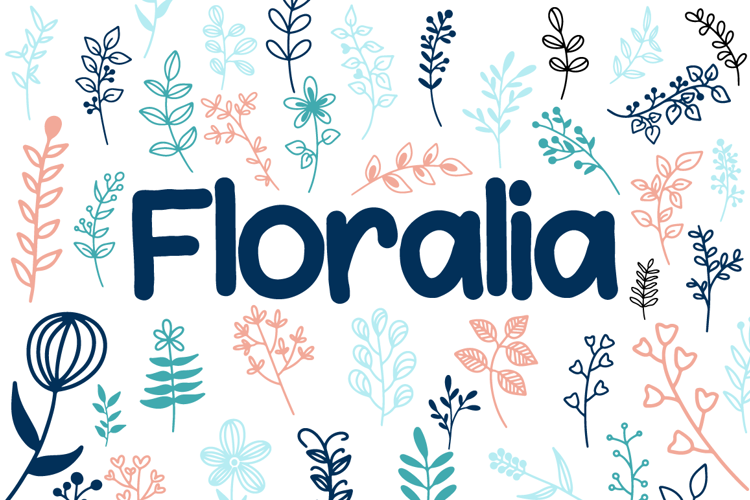
Floralipart 2 Font
Floralia Part 2 is a dingbat font with a beautiful botanical and plant concept. This font is the second part of Floralia. This font was created to make it easier for users to use clipart in a software. This font has various purposes such as, clipart, fabric, logotype, product sign, shop logo, etc.